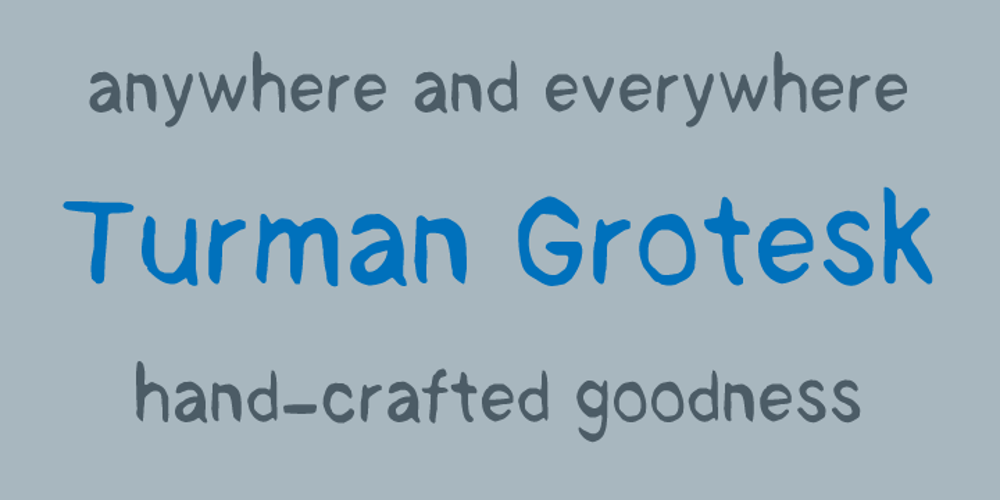
Turman Grotesk Font Family was designed by Chank Diesel, Adam Turman and published by Chank. Turman Grotesk contains 1 styles and family package options. Turman Grotesk is inspired by the hand-drawn painterly letterforms poster artist Adam Turman uses in his poster designs. Each character uppercase and lowercase has contextual alternates that can be used to give your type a more natural, handmade feel.